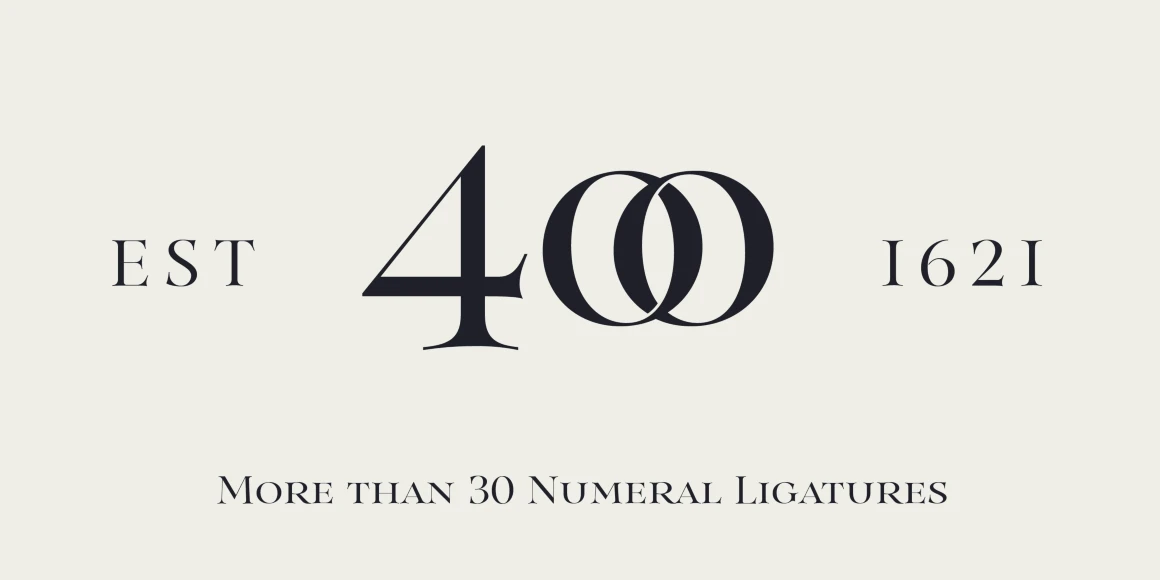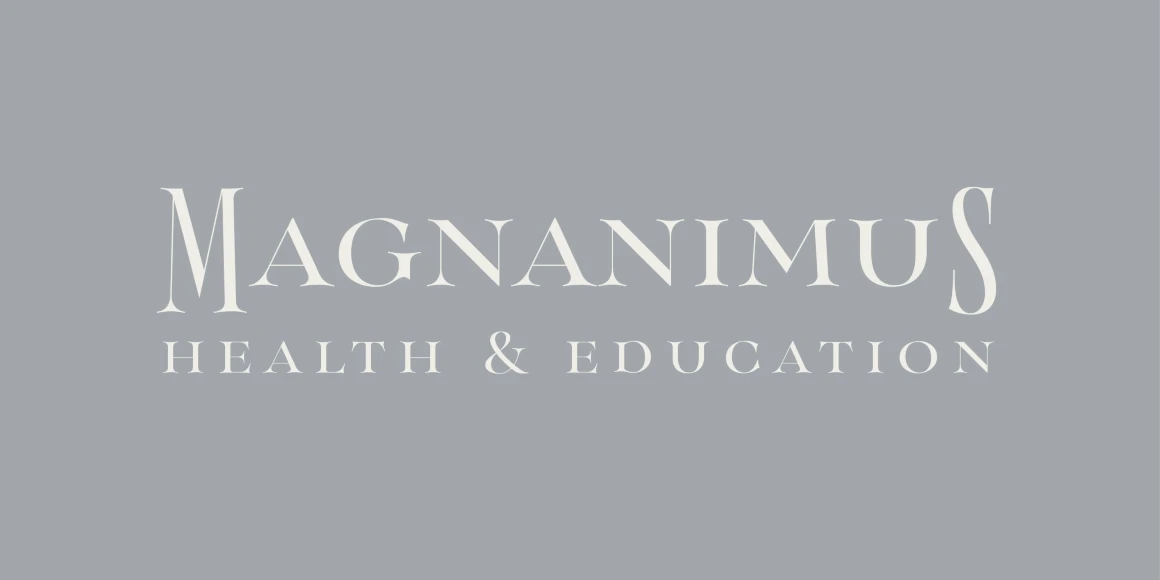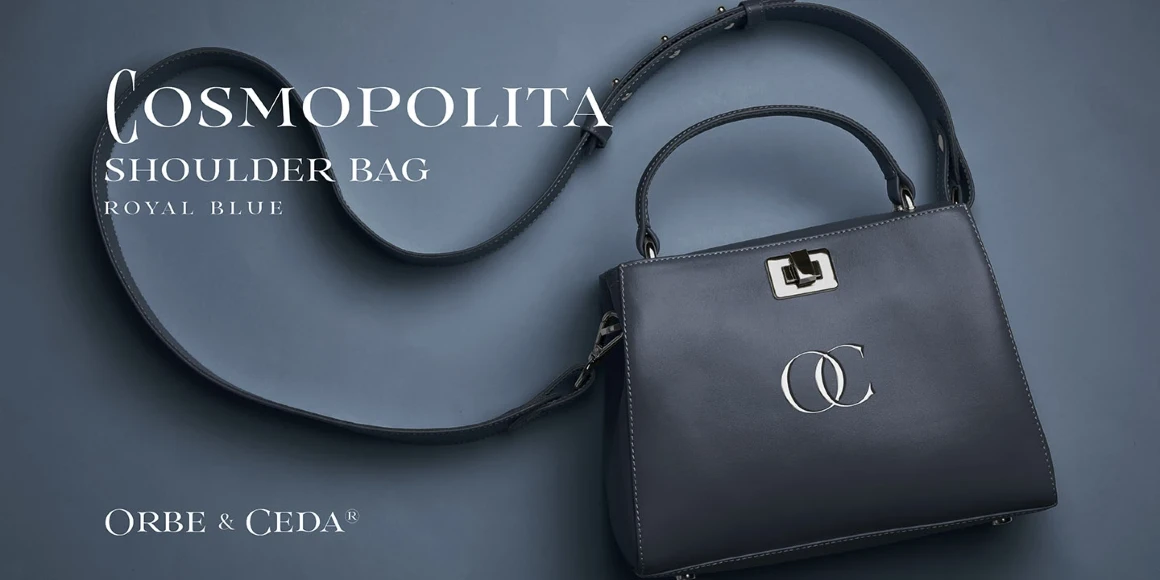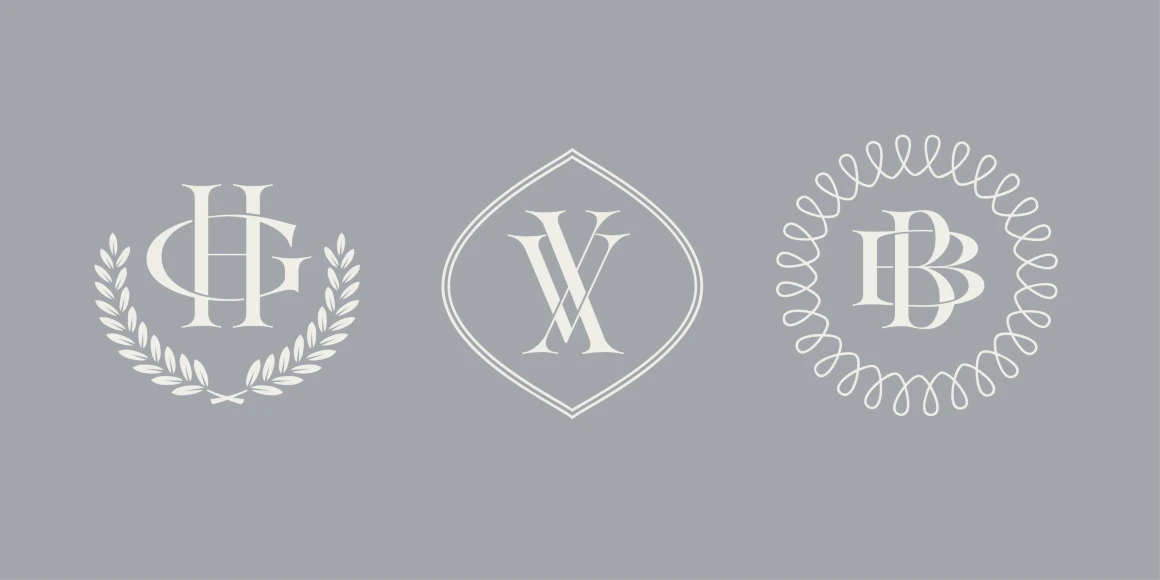
Sinete
By Natanael Gama
Sinete Regular
Sinete is an elegant serif family focused on creating beautiful words. This delicate typeface is perfect for wedding invitations, refined logos, titles, and branding. Packed with 9 stylistic sets, this versatile design allows you to create many different visual textures, including Uppercase, Small Caps, Centered Small Caps, and Opulent Caps. With illustrated frames and more than 350 handmade interlocking monograms, you can create any 2- and 3-letter monogram and 30+ numeral ligatures.